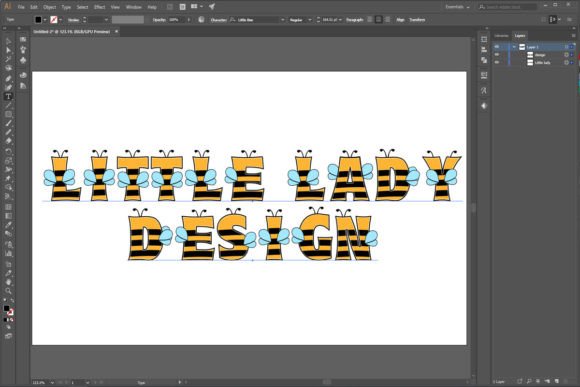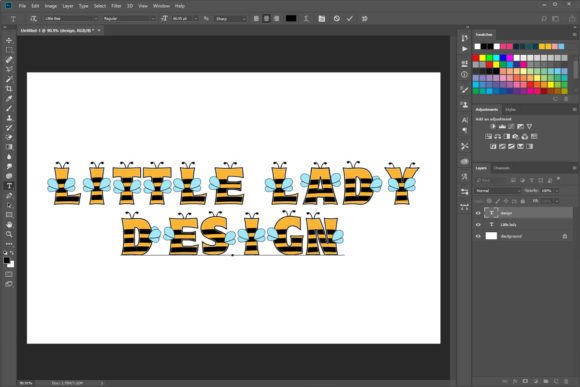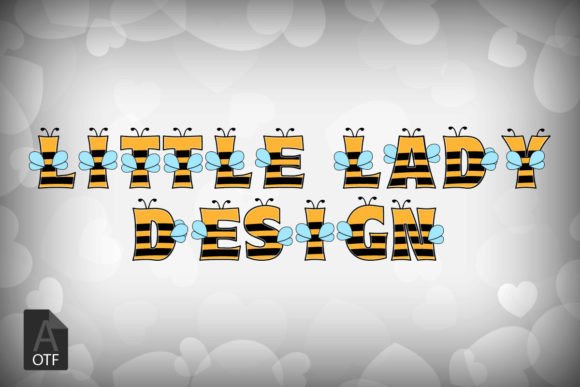
Introduction to Little Bee Font
Little Bee is a whimsical color font that is a buzz-worthy choice for playful designs.
Each letter features delicate bee wings in soft pastel hues, adding a touch of magic to any project Perfect for children’s books, greeting cards, or anything that needs a touch of cuteness and whimsy.
Key Features of Little Bee Font